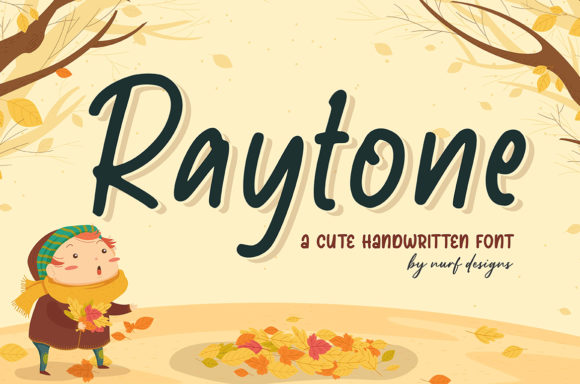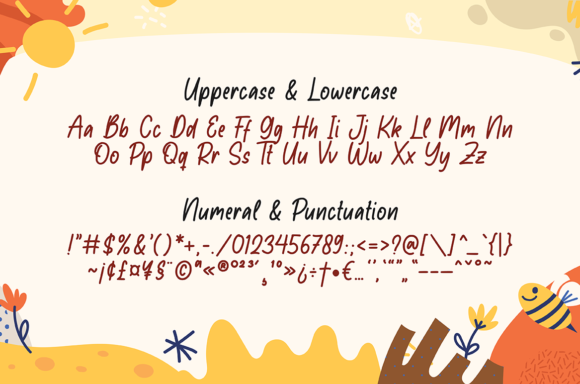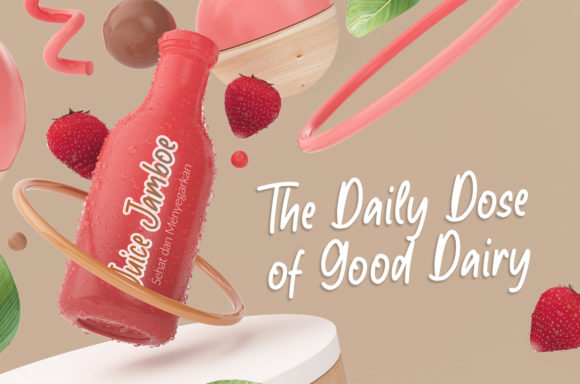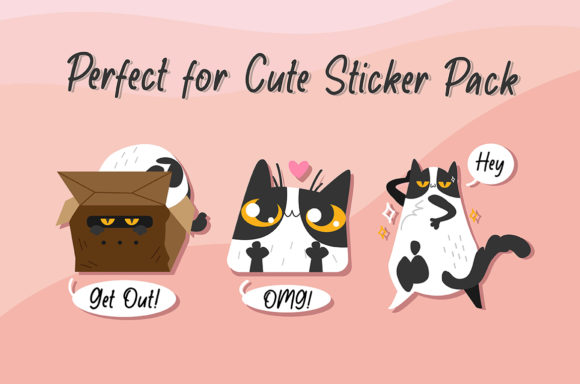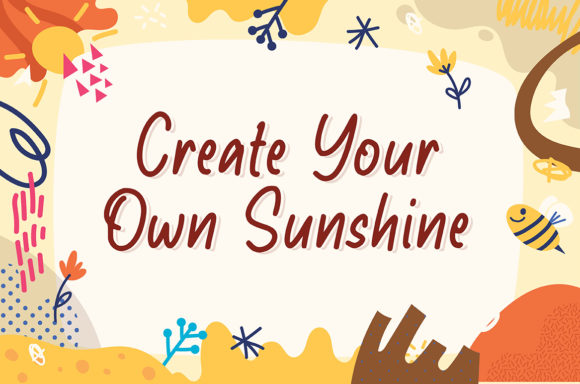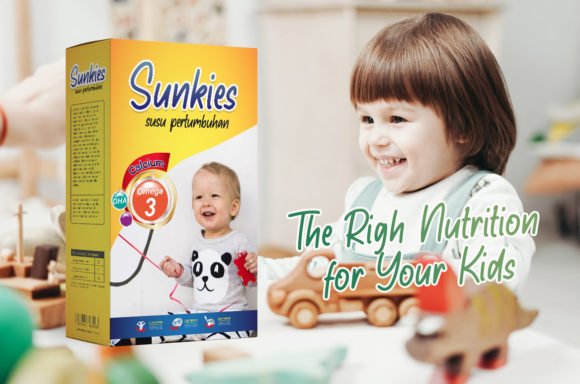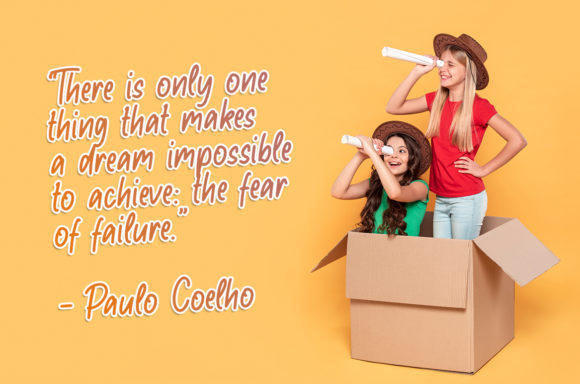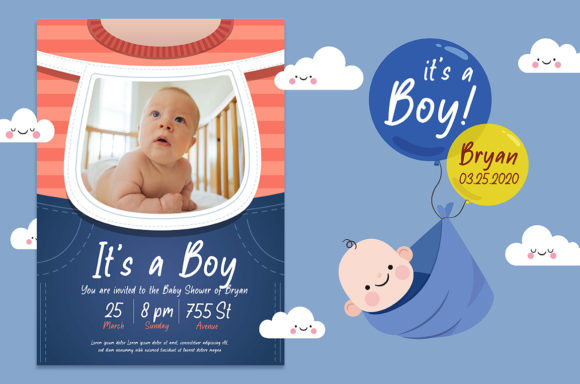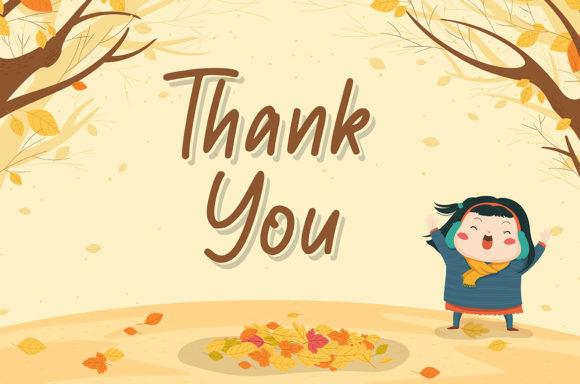
Raytone Font
Raytone is a cute and delicate handwritten font, designed with the help of a brush pen. It has a cheerful style that will elevate your projects to the highest level. Use this lovely font to brighten up any kids and school projects!